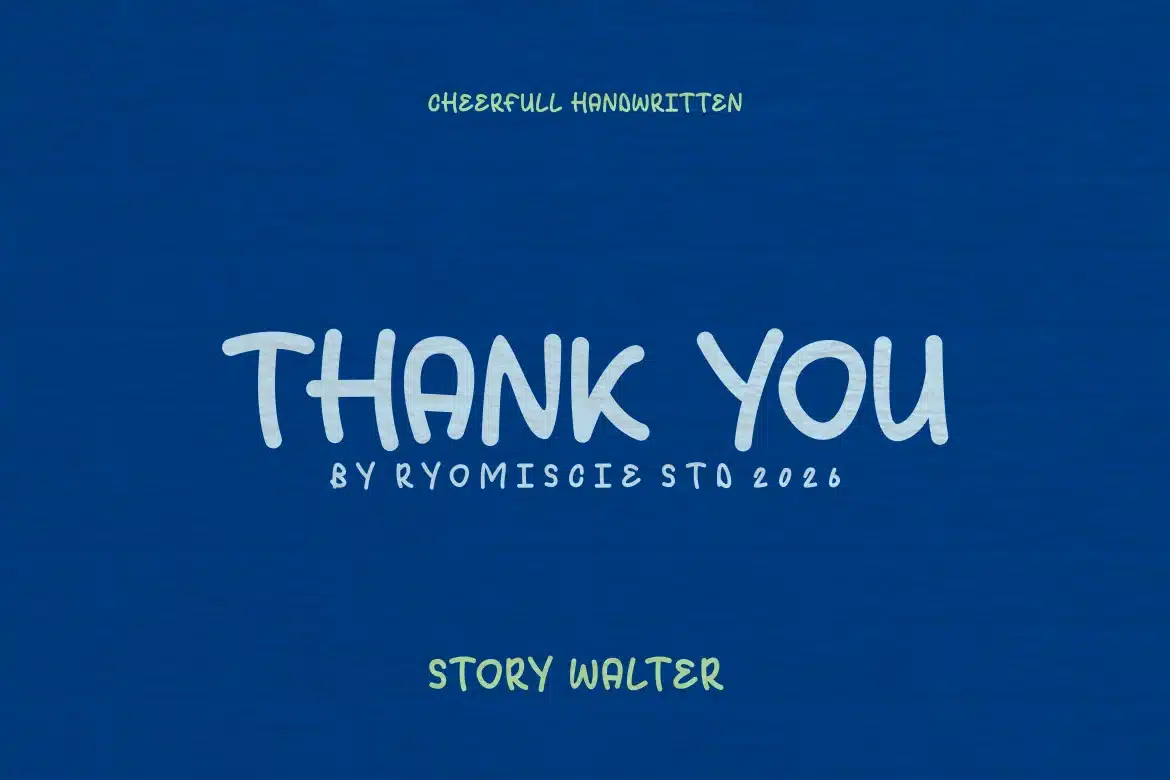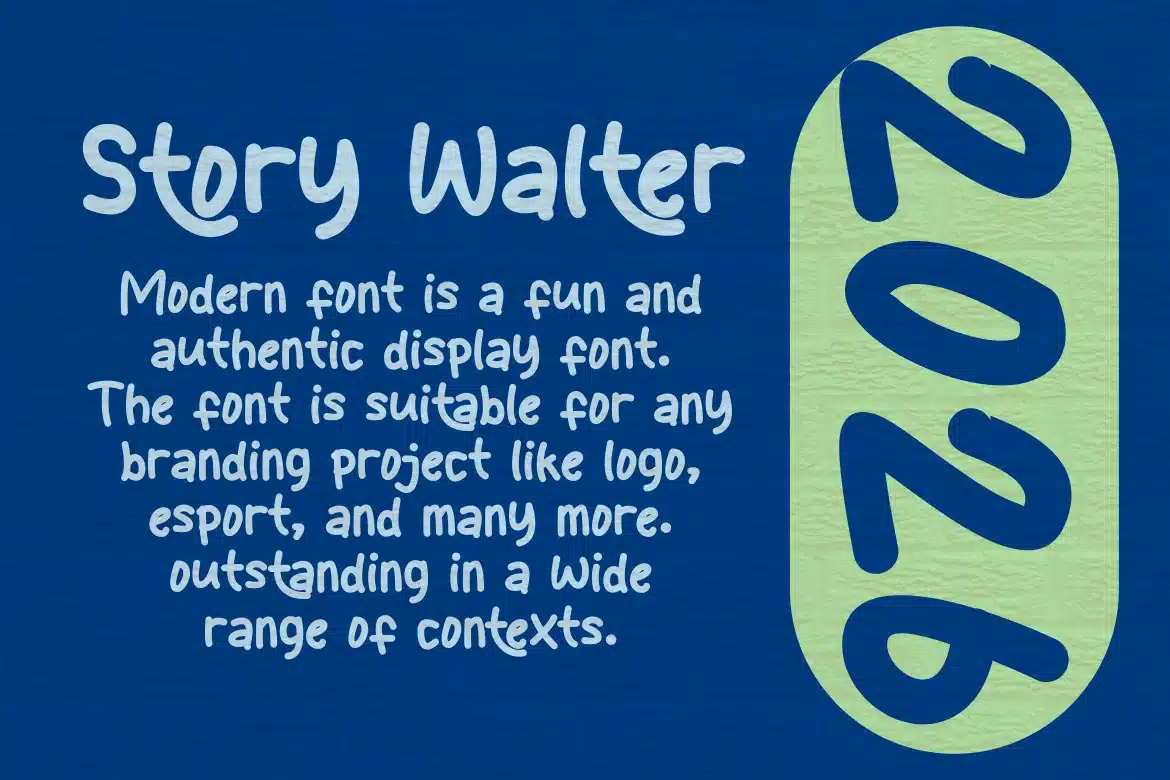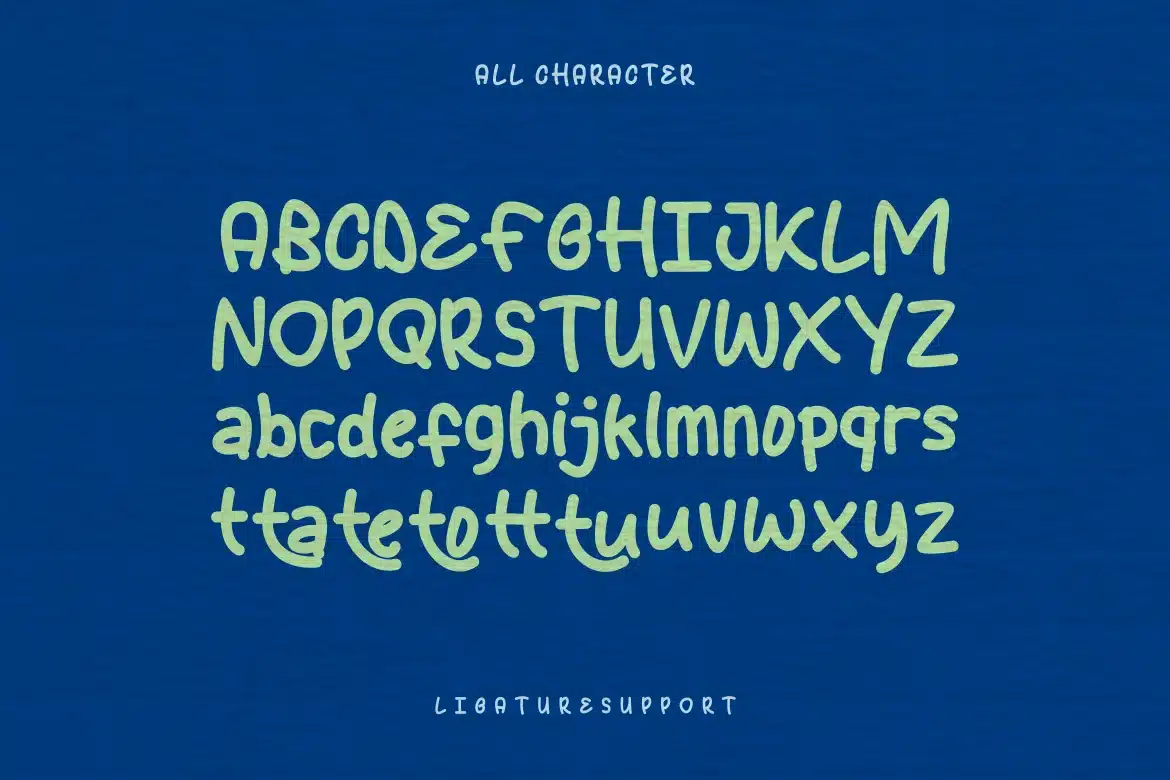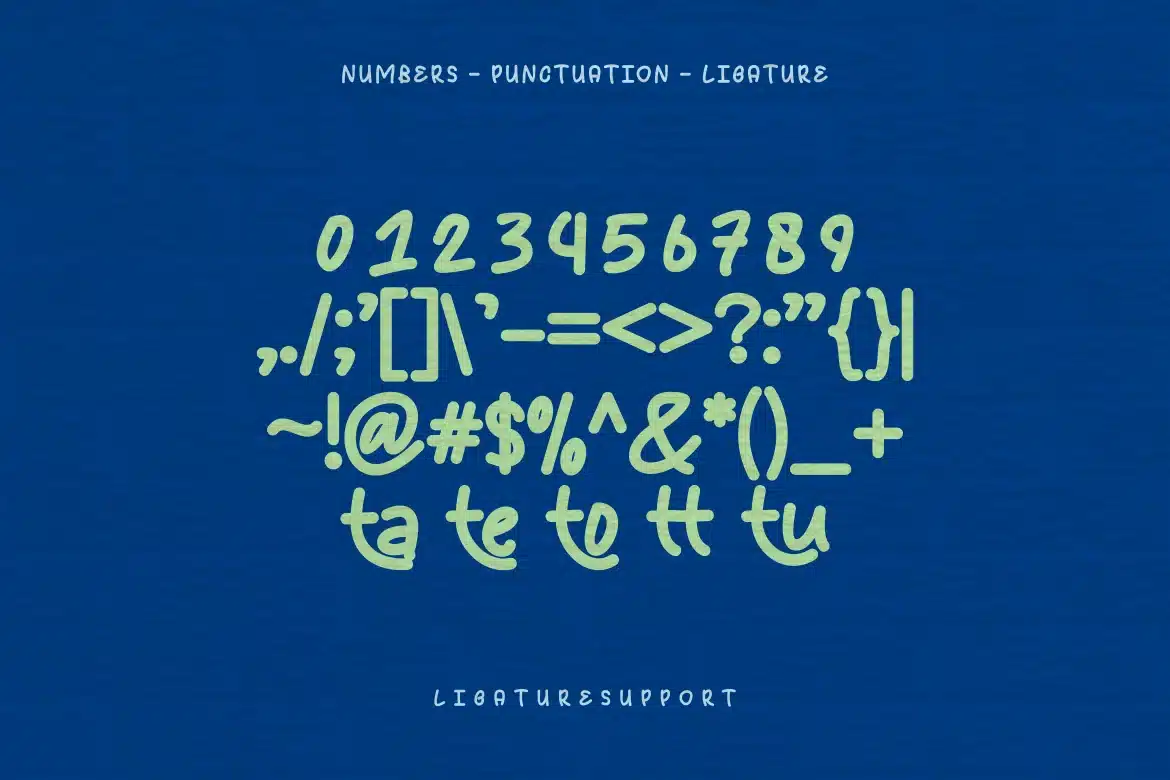
Introducing our new product Story Walter - Cheerfull Handwritten Font
Story Walter - Cheerfull Handwritten Font is a fun and authentic display font. The font is suitable for any branding project like logo, esport, and many more. outstanding in a wide range of contexts.